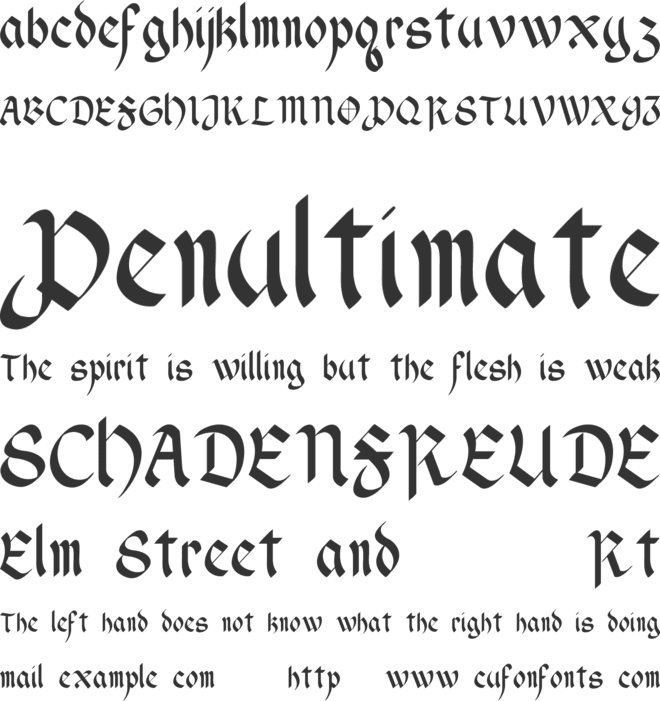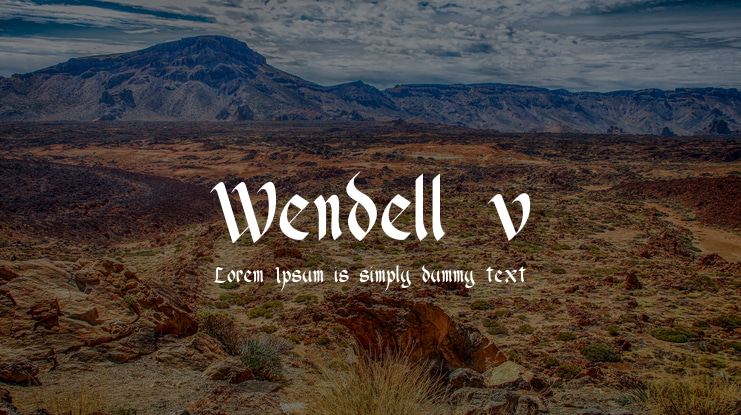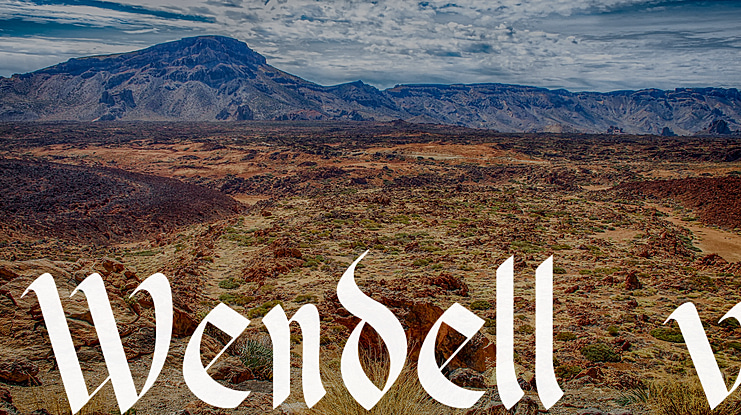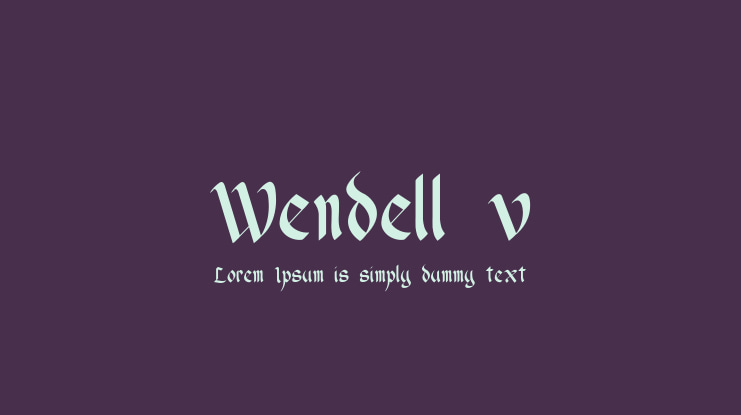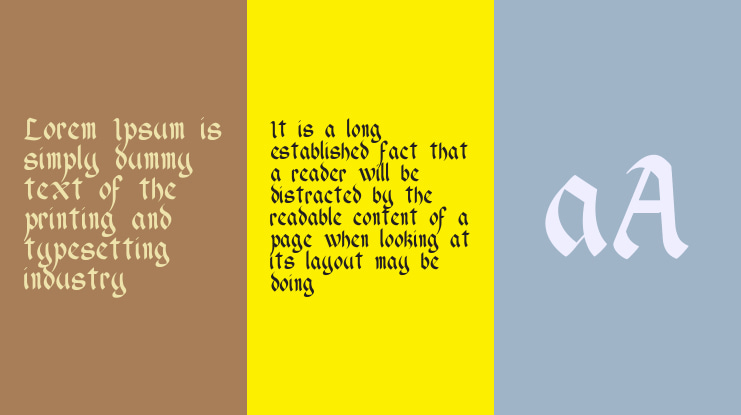
Wendell v1 Font
Andrew Willis
This is Version 1 of my first usable typeface. I've made one other typeface in the past, also a blackletter, but it was never made into a .ttf file, and remains as object graphics in Illustrator. Version 1 is free to use, but only contains letters A-Z and nothing else. Version 2 will have a full range of characters, and will be significantly polished.